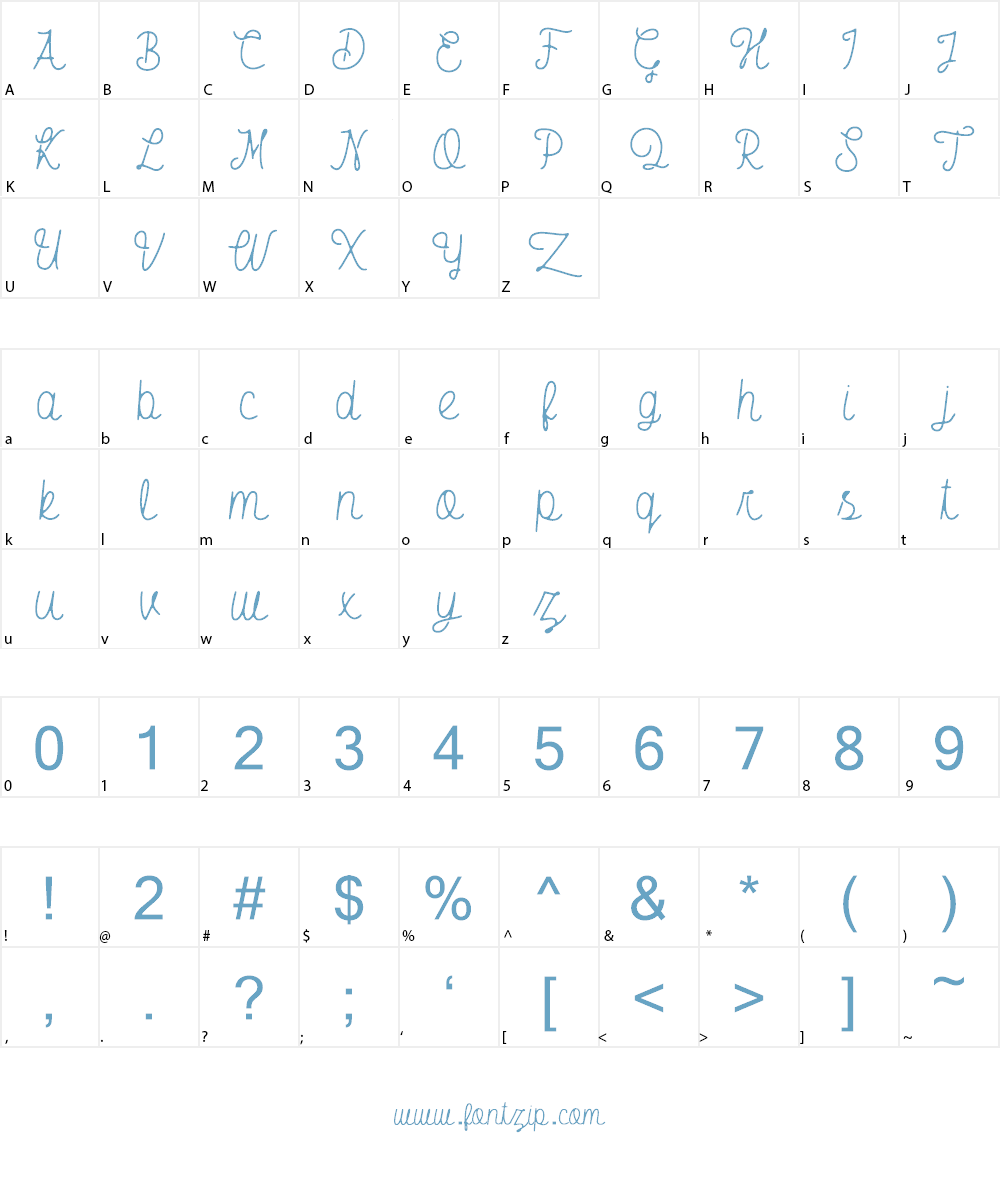
Proudly Present South East monoline script, A simple monoline font with two style clean and Rough. And many alternative characters and ligatures. Combined with 28 illustration. Very suitable to use on your logotype project, poster, tshirt, branding, greeting cards, badges, ect. It also support multilingual characters.